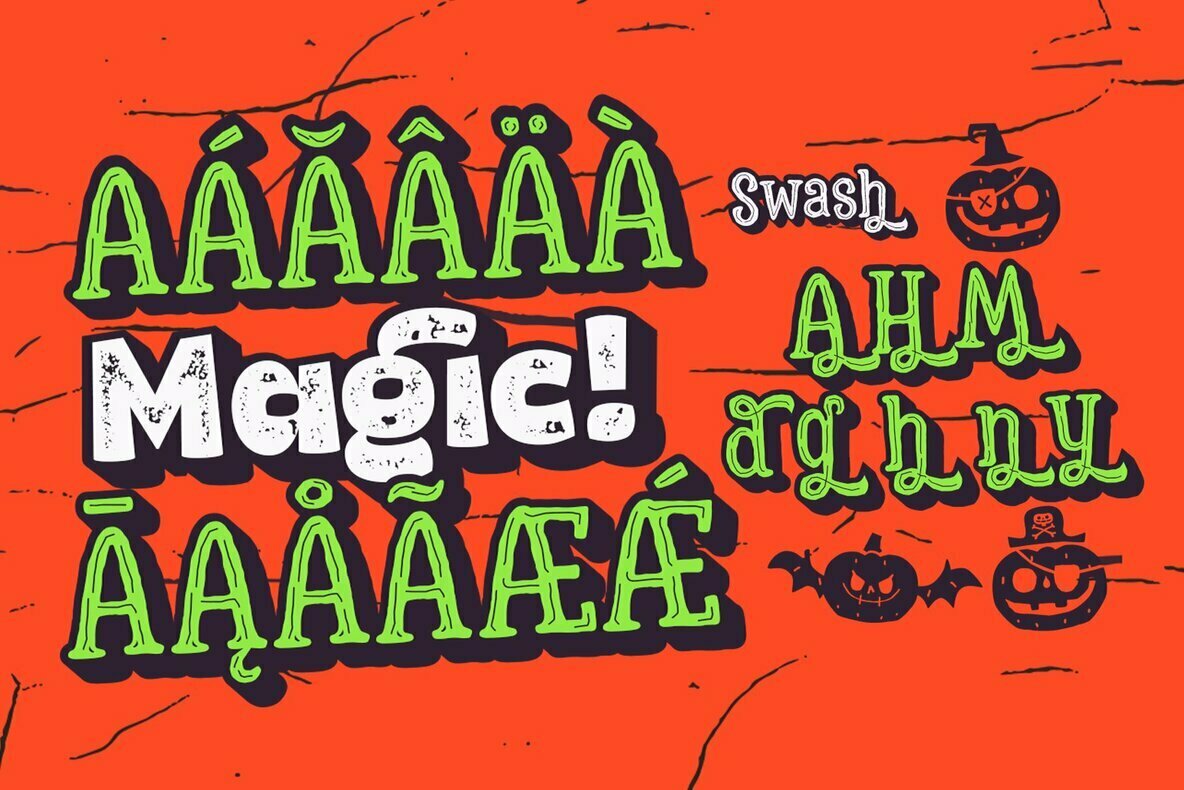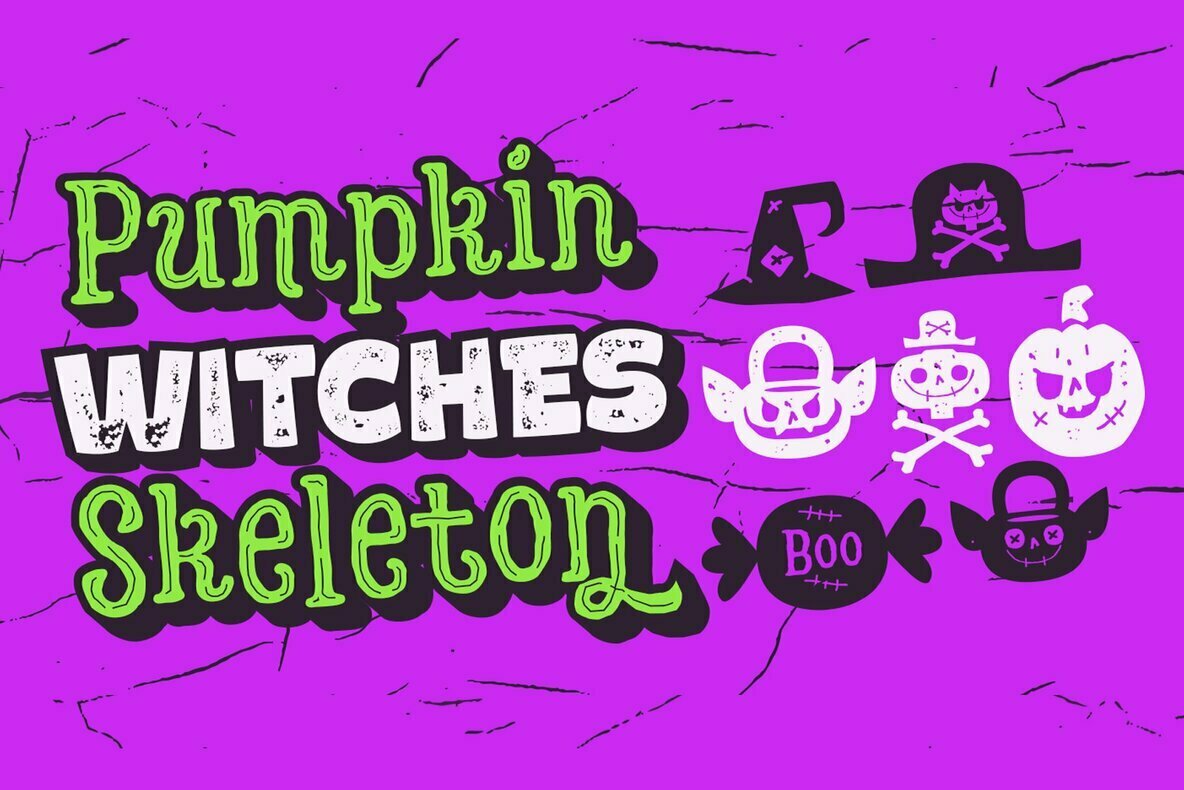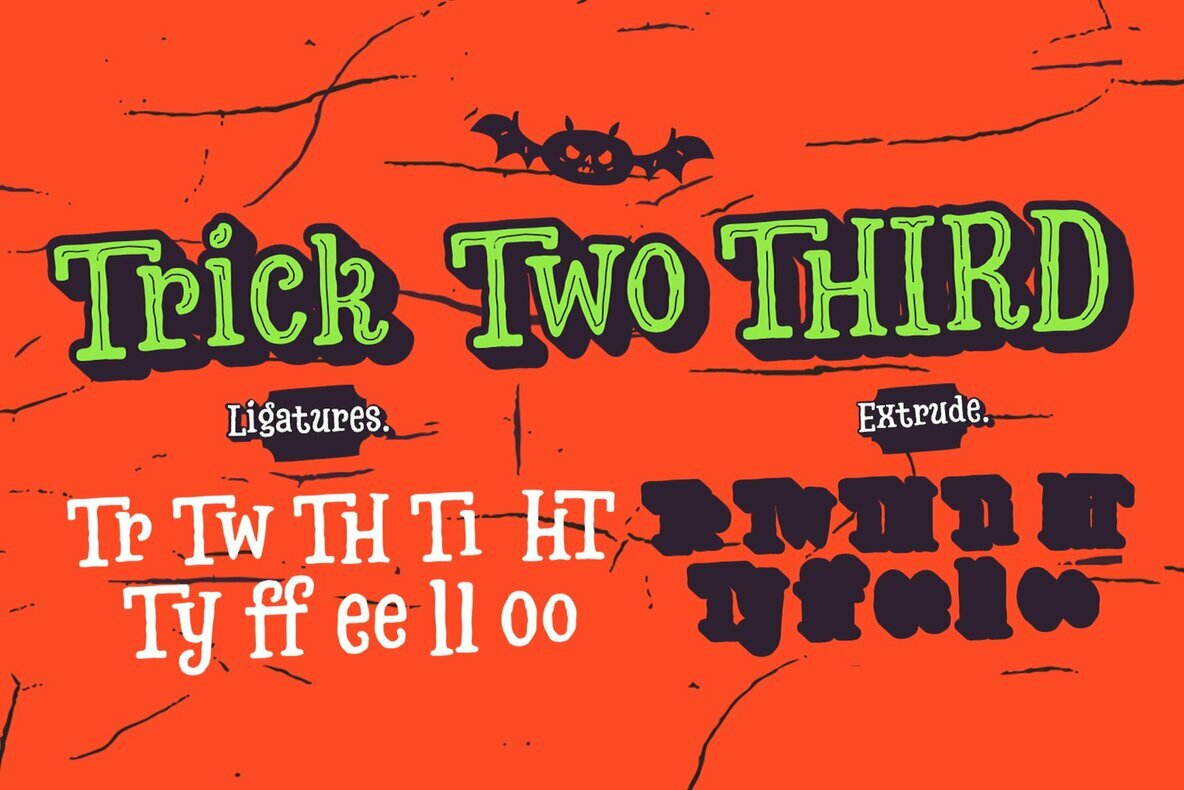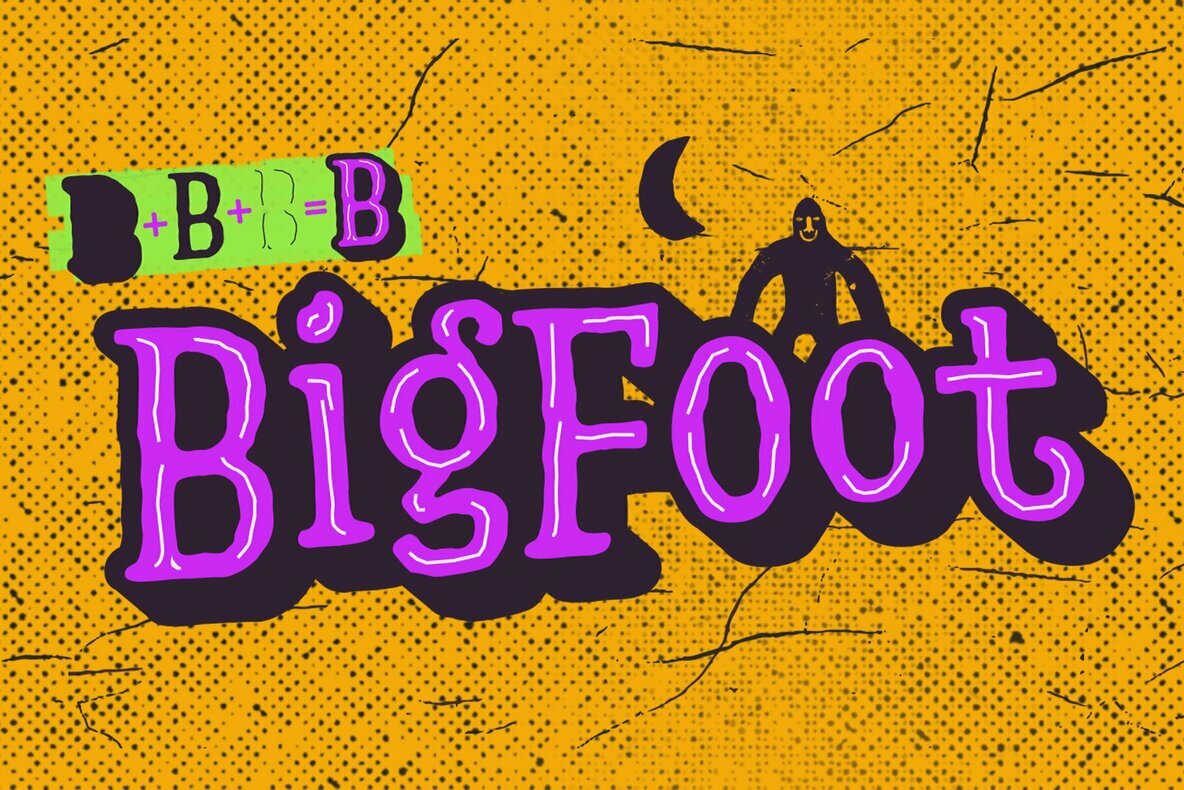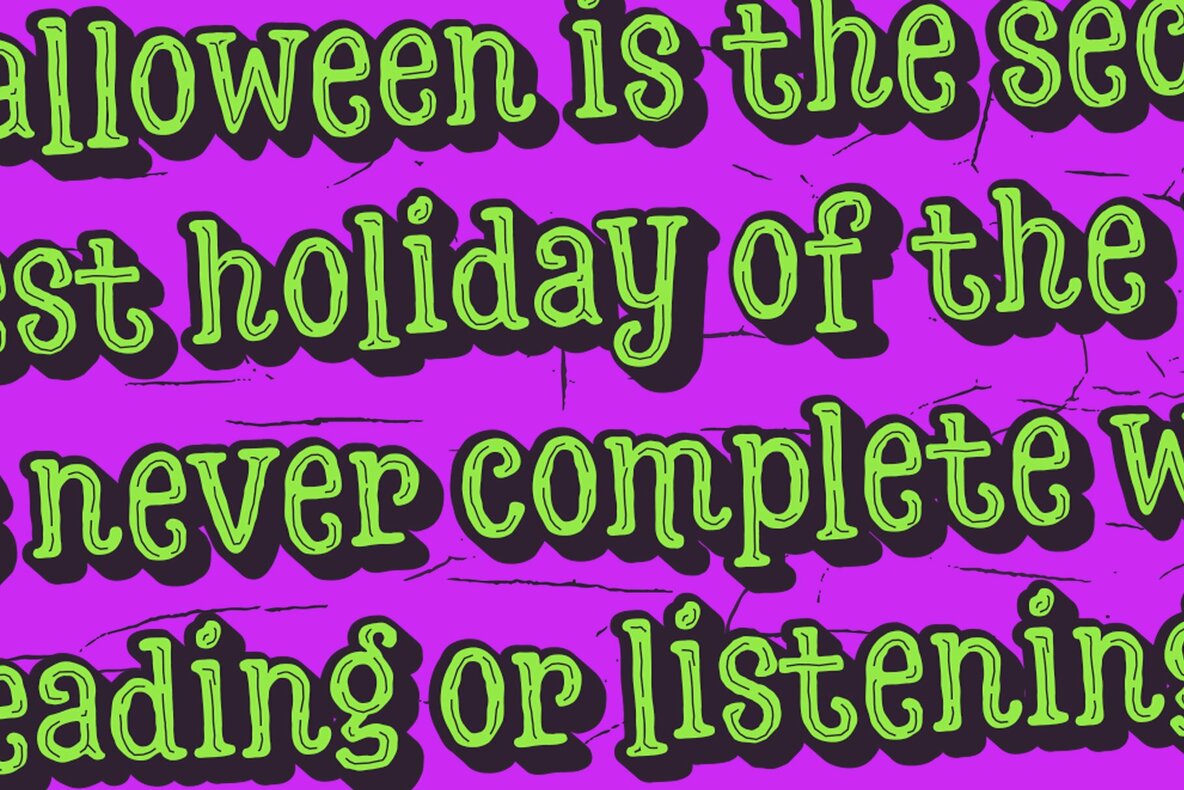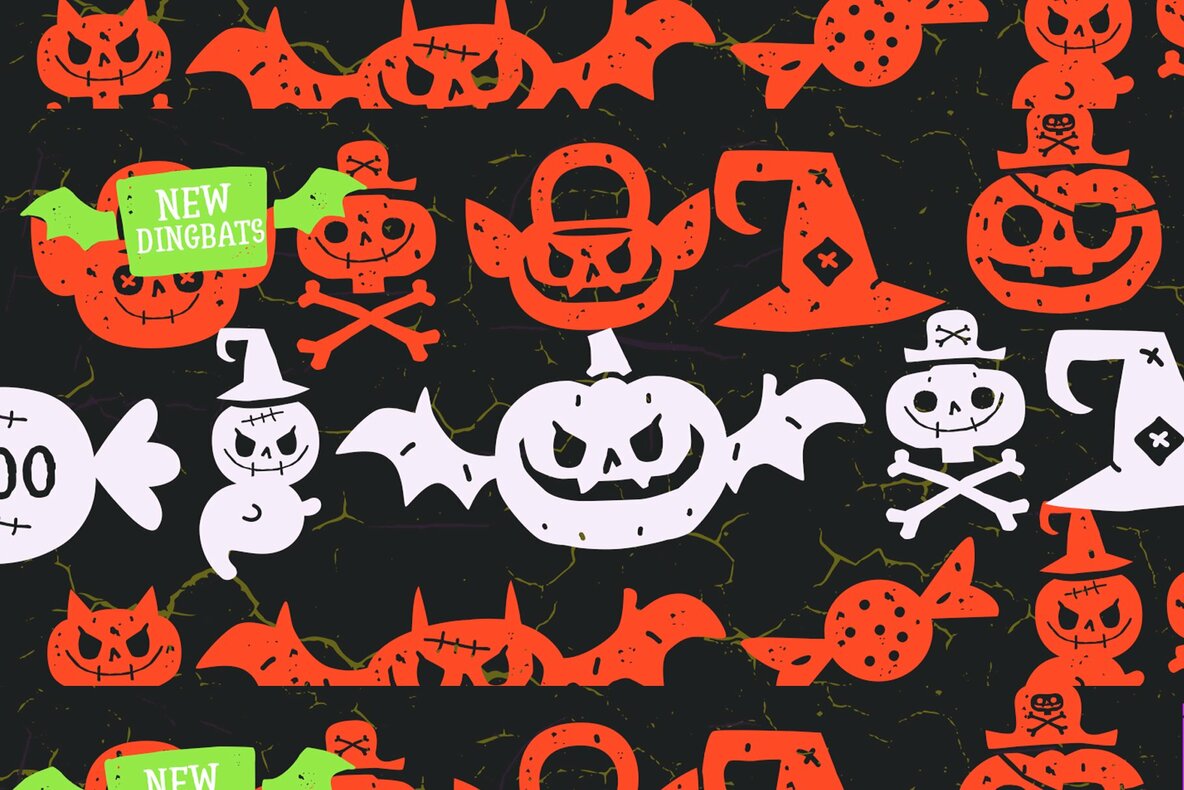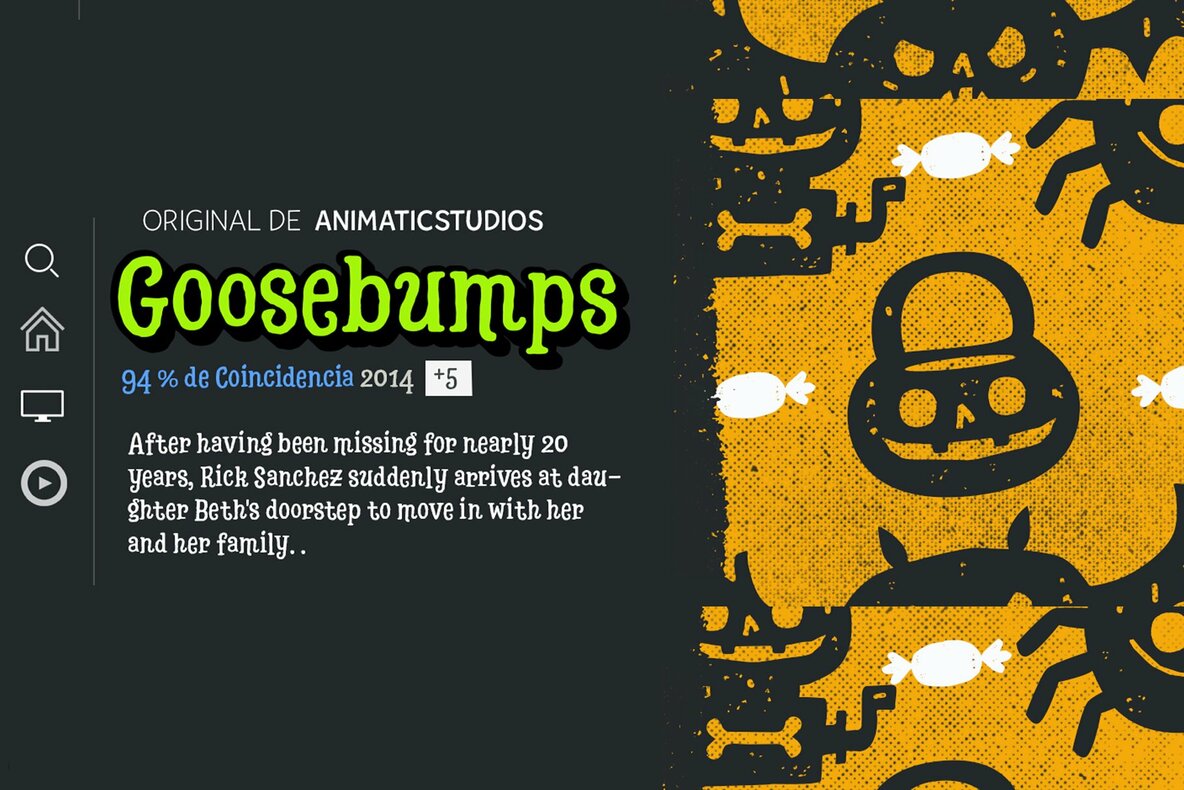
Hatter Halloween Font
Hatter Halloween brings a whimsical twist to your design projects with its enchanting array of features inspired by all things eerie. Ideal for Halloween festivities or horror-themed creations, this typeface extends the original After with delightful additions that ignite creative possibilities.Hatter Halloween: A Spooky Typographic Adventure